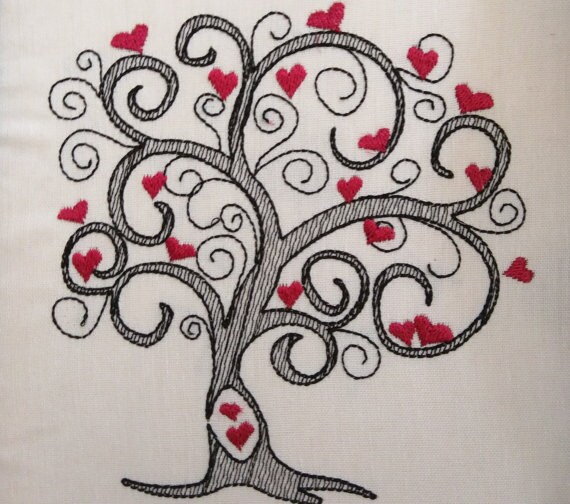
Magical Family tree and mini font - machine embroidery designs - for hoop 4x4, 5x7, 6x10
Note, that is quick stitch designs, they look like like sketches. Good to embroider on light color fabrics or white, because the background fabric look through
Editors choice mini font is also included from listings below: